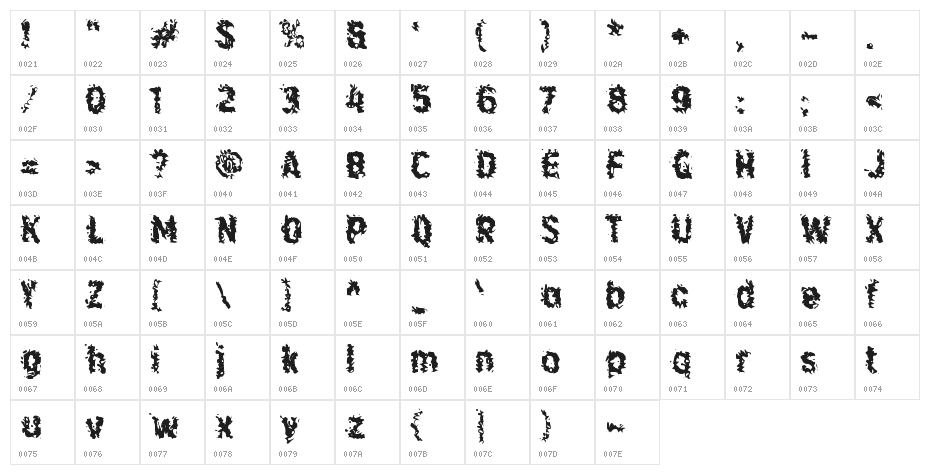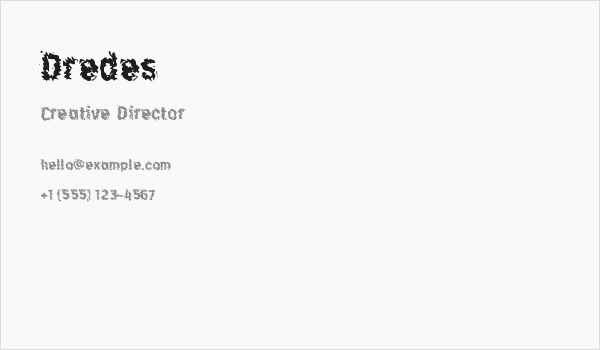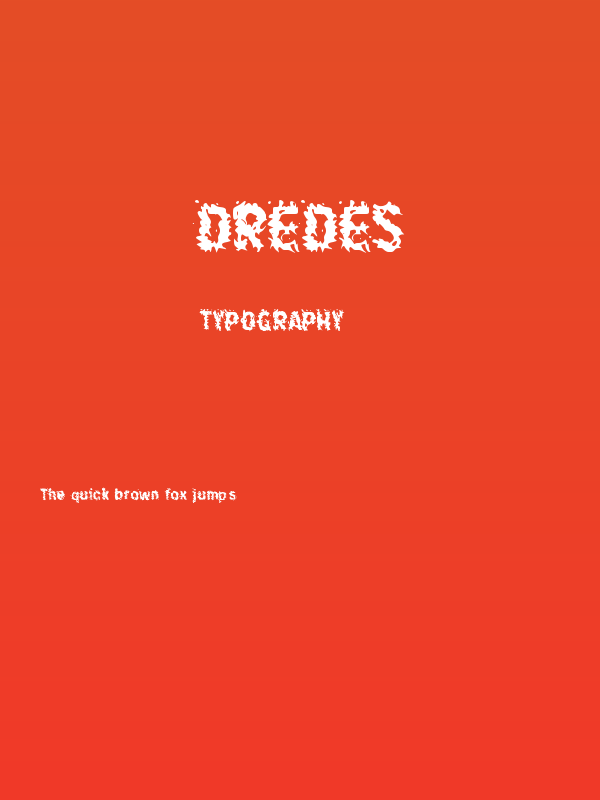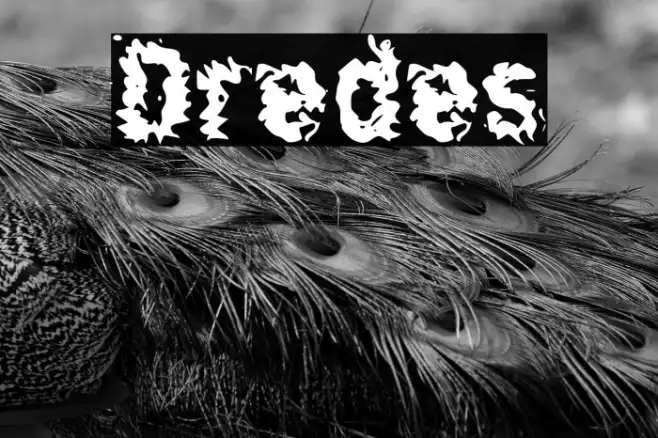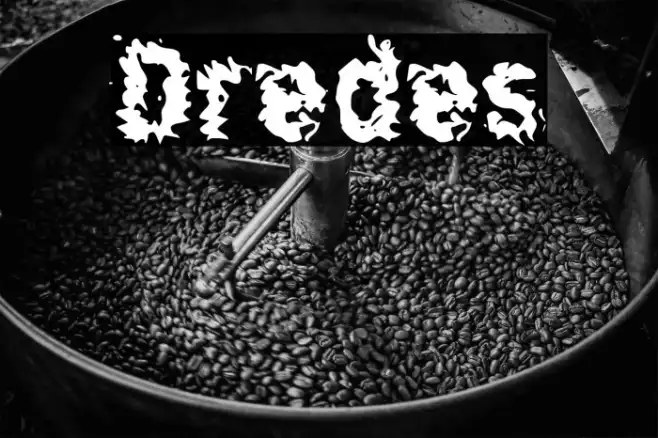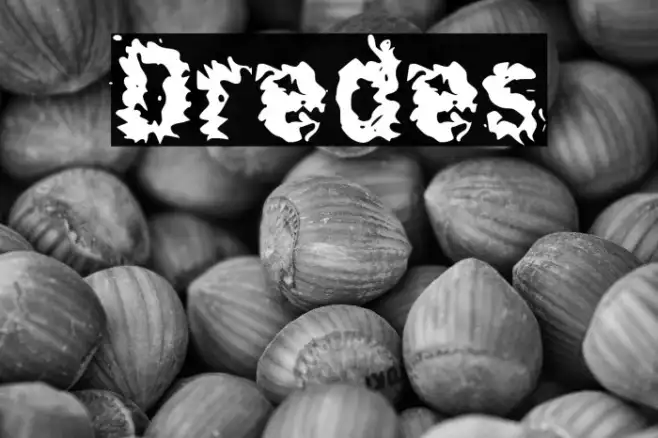
Dredes Font
Dredes Description
This font features a highly decorative and chaotic style, reminiscent of organic or natural forms. The characters appear as if they are made from splatters or bursts of ink, giving them a dynamic and energetic appearance. The edges are irregular and jagged, contributing to a sense of movement and unpredictability. Despite the chaotic design, each letter remains distinct and recognizable. This font is ideal for projects that require a bold and unconventional aesthetic, such as horror-themed designs, edgy branding, or artistic posters.
| Proposed Projects | Ideal for horror-themed designs, edgy branding, artistic posters, and album covers. |